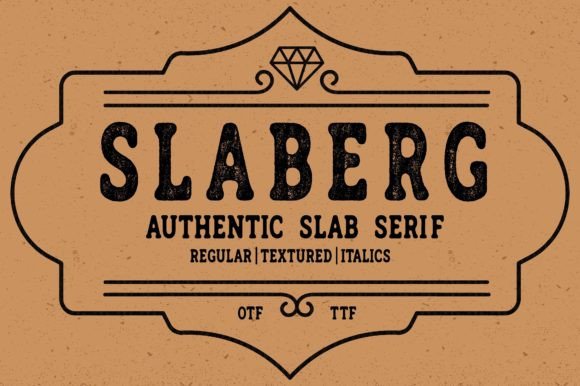
Introducing Slaberg Font, the ultimate choice for creating captivating and eye-catching Christmas posters! Developed by Minimalistartstudio, this vintage slab serif font family aims to bring the charm and elegance of color press printing technology to the digital world.
Slaberg Font is more than just a typeface - it's a gateway to the luxurious printing effects that were once exclusive to physical media. With its unique grunge texture and carefully crafted font body, Slaberg Font effortlessly captures attention and adds a touch of sophistication to any design.
Whether you're working on a vintage-themed project or aiming to create a retro-inspired masterpiece, Slaberg Font is the perfect companion. Its distressed bleed contours beautifully showcase the essence of letterpress printing, adding a realistic and authentic feel to your artwork.
But Slaberg Font doesn't stop at aesthetics alone. By incorporating this font into your project, you'll witness a remarkable transformation in its overall quality. Your creations will exude a sense of elegance and professionalism that is bound to captivate your audience.
Imagine the power of Slaberg Font when used in Christmas posters. Its vintage charm and unique texture will instantly transport viewers to a bygone era, evoking nostalgia and warmth. The carefully designed letterforms will make each word stand out, conveying your message with utmost clarity and impact.
Slaberg Font is not just another slab serif font - it's a masterpiece that has the ability to elevate your designs to new heights. Its versatility allows it to shine in various applications, from branding and packaging to headlines and signage. The possibilities are endless, limited only by your imagination.